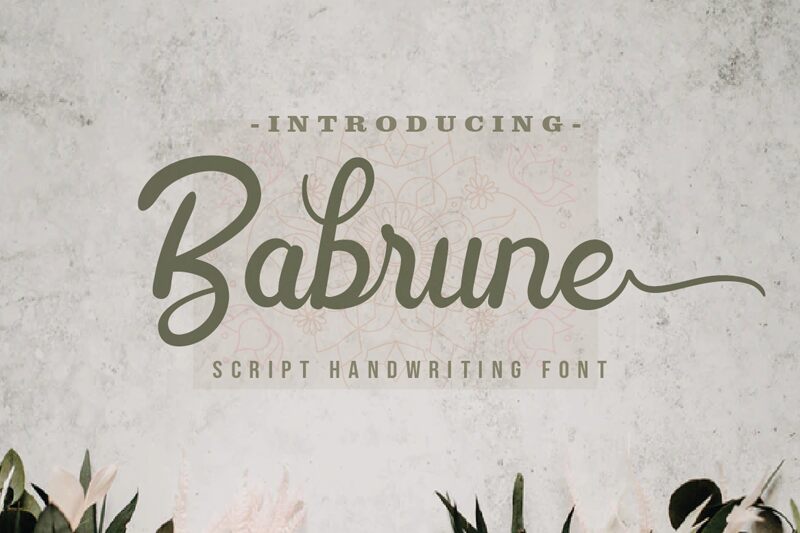
Babrune font is a lovely script font designed by Murozakul Akhsan.
Fall for its breathtaking style and use it to create gorgeous wedding invitations, stationery, eye-catching social media posts and much more!
Babrune
Murozakul Akhsan